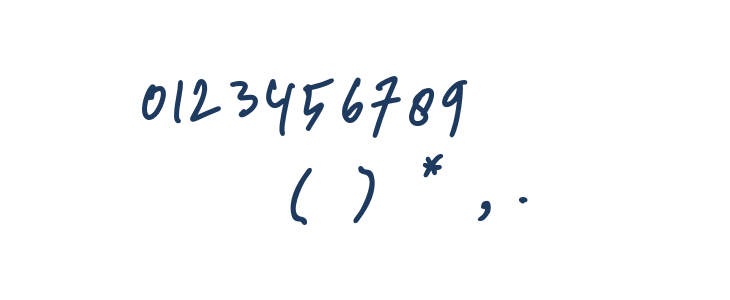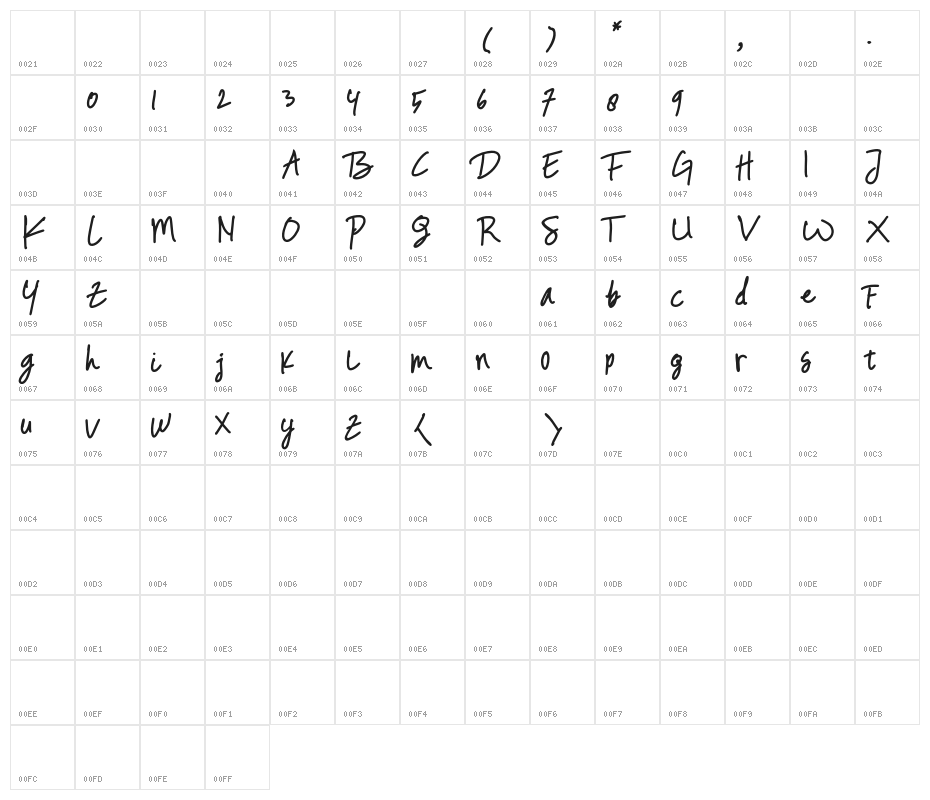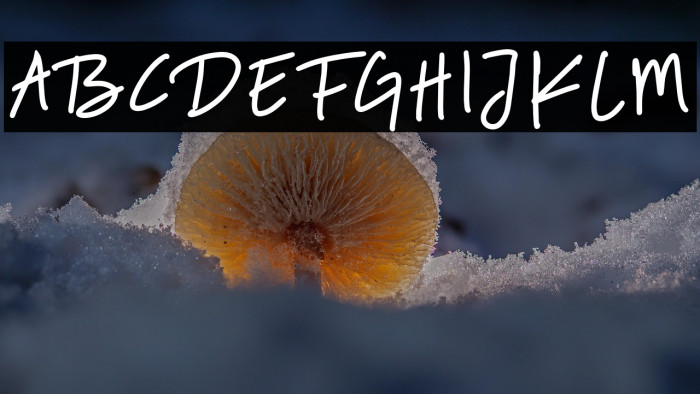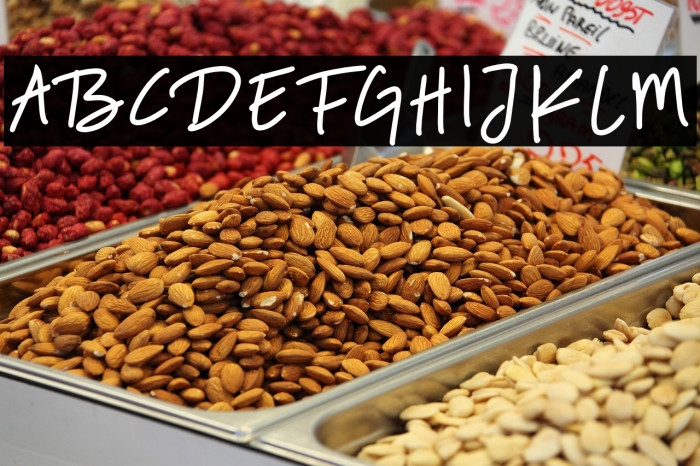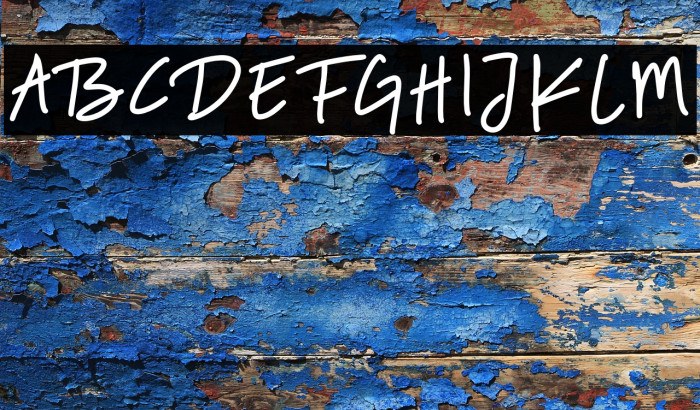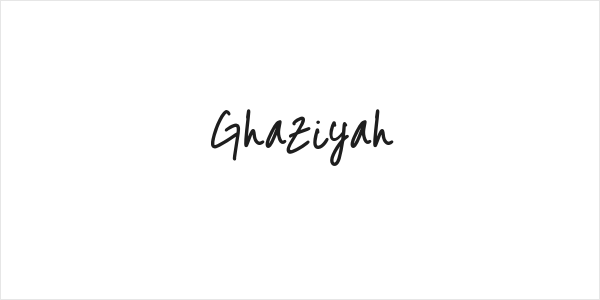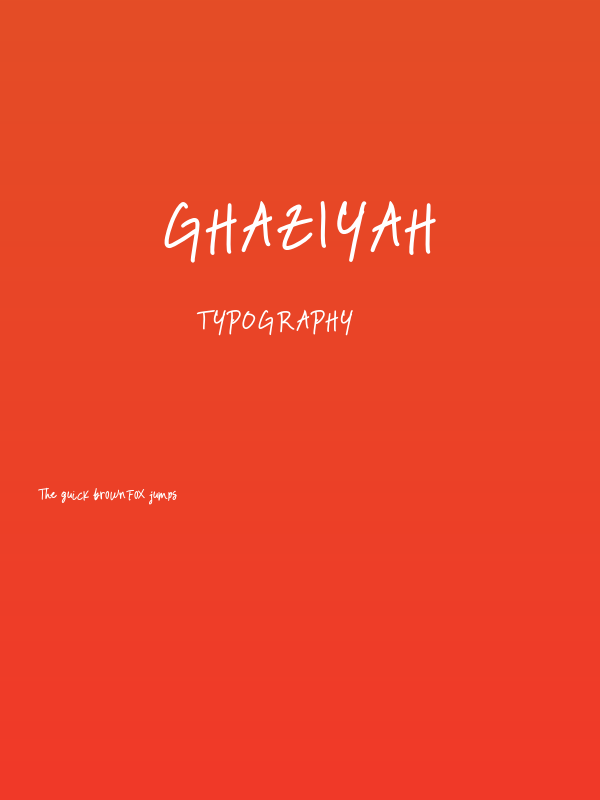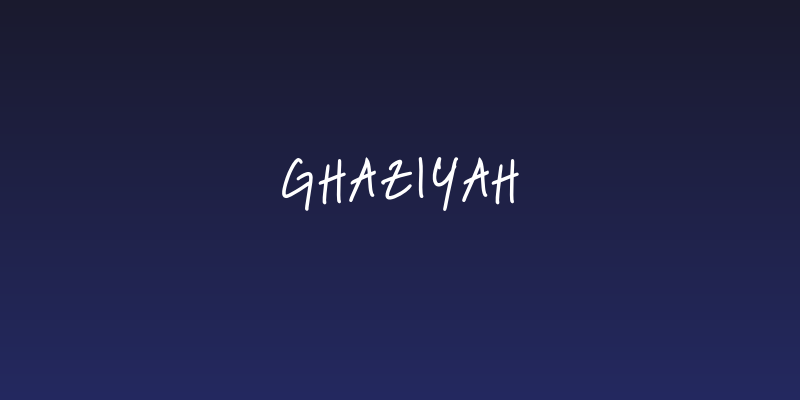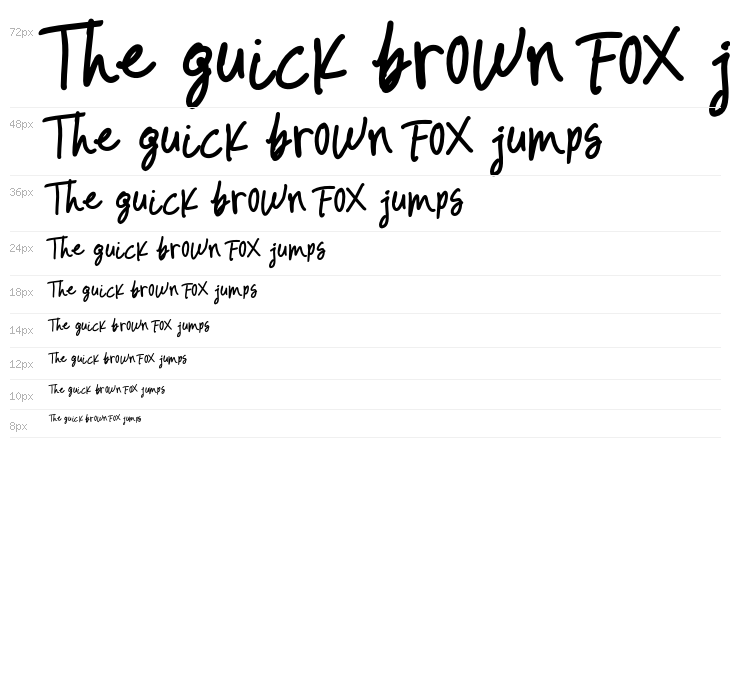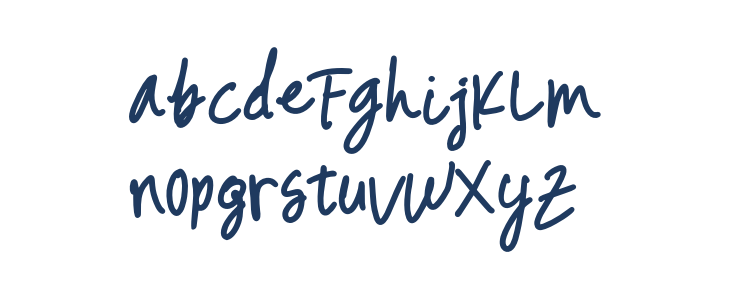
Ghaziyah Font
Ghaziyah Description
This font exudes a lively and dynamic handwritten style, characterized by its fluid and slightly irregular strokes that mimic natural handwriting. The uppercase letters are bold and confident, while the lowercase letters maintain a playful and approachable demeanor. The numerals and special characters are consistent with the overall style, providing a cohesive look. The font's casual and informal appearance makes it ideal for projects that require a personal touch or a sense of spontaneity. Its legibility is maintained despite the playful nature, making it versatile for various design needs.
| Use Case | Logos, Headlines, Informal Text |
| Proposed Projects | Great for greeting cards, personal branding, social media graphics, and informal invitations. |